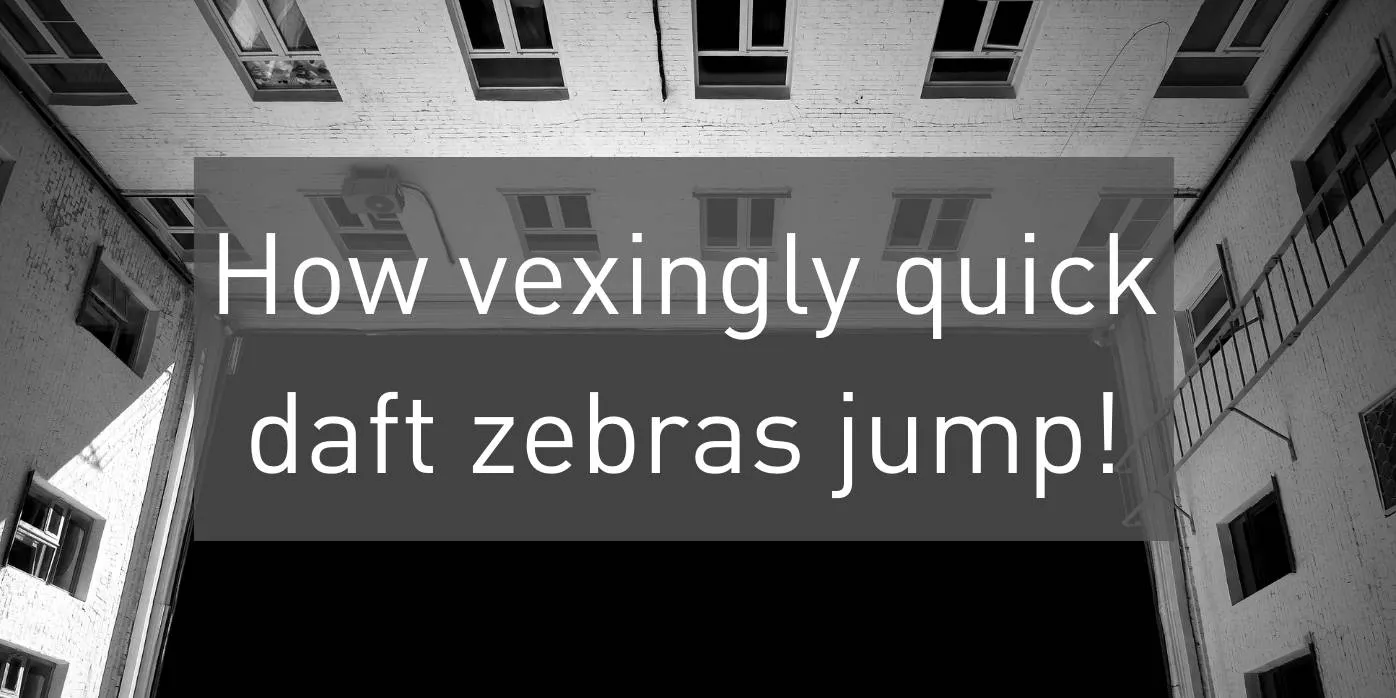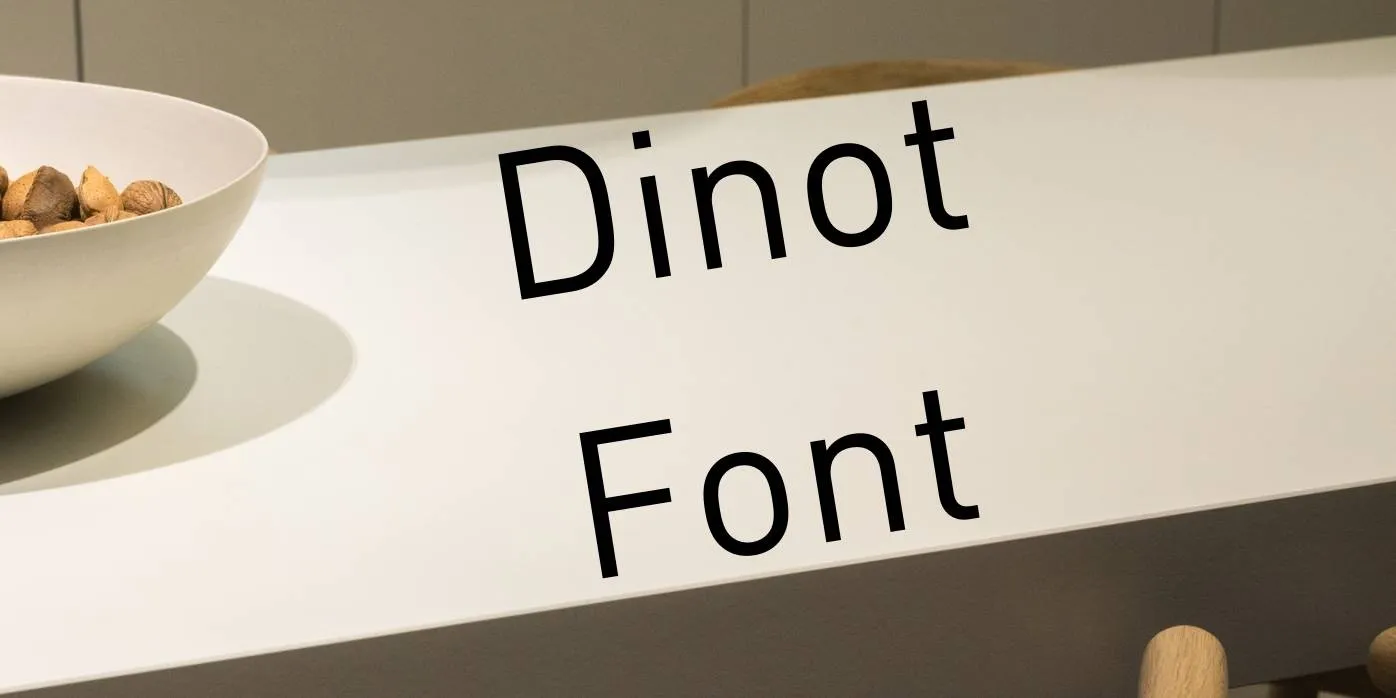
Dinot Font
Dinot Font was developed and published by Albert Jan Pool. This typeface belongs to the Sans- Serif font family. It is characterized by a clean, modern, and geometric look. This typeface has cleaned and Bold Features.
Its Light and Medium Styles are best. This fascinating Font is perfect for logos and short texts. It comes in 6 weights are Thin, Light, Regular, Medium, Bold, and Black. This cozy font has a total of 540 characters.
This tremendous font also includes a set of alternate characters, ligatures, and stylistic sets. It will help give your designs a clean and modern feel. Use it in conjunction with other Sans- Serif fonts to create a cohesive design. The space between its characters is tight, which can be a disadvantage for some users.¬† It’s not recommended for long paragraphs of text.